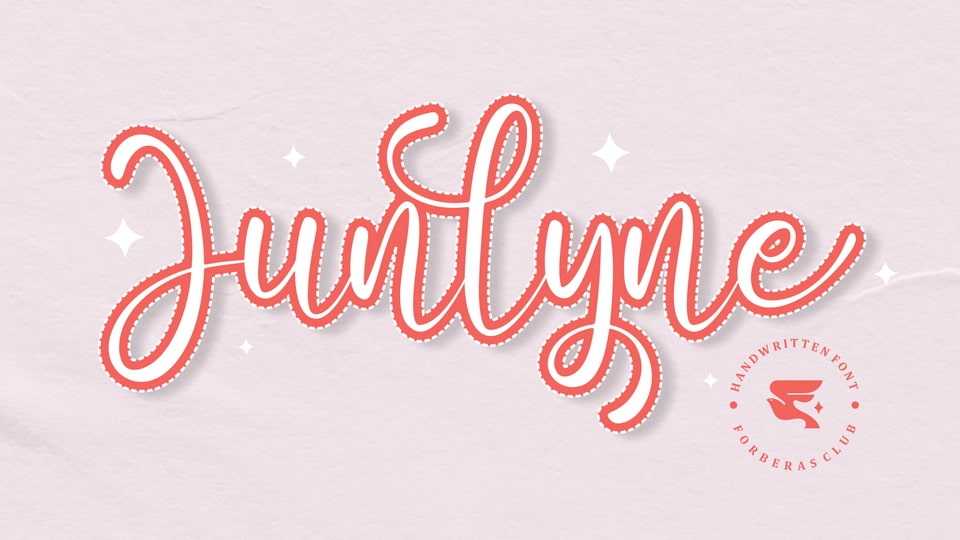
Download Junlyne font, a script typeface inspired by modern and ligature characters. Junlyne font is perfect for creating modern and chic designs such as logos, packaging, editorials and more.